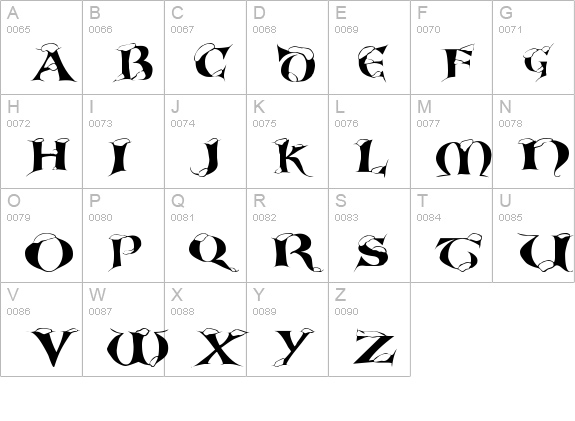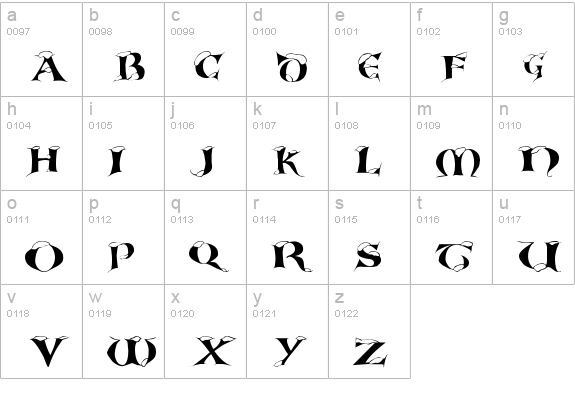
Introducing the exquisite White Christmas font, a magical typeface that captures the essence of the holiday season like no other. This elegant and versatile font is the perfect addition to your festive design projects, whether you're creating Christmas cards, holiday-themed invitations, or simply adding a touch of seasonal cheer to your website or social media posts. With its delicate strokes and graceful curves, White Christmas font brings a sense of joy and warmth to any text it adorns. Its unique style evokes the beauty of freshly fallen snow, glistening under the moonlight, while the intricate details of each letter reflect the intricate patterns of frost on a winter windowpane. But what truly sets White Christmas font apart is its generous nature – it is completely and utterly free. That's right, this stunning font is freely available to download at FontsMarket.com, giving you the opportunity to bring a touch of holiday magic to your designs without breaking the bank. Whether you're a professional graphic designer or a passionate DIY enthusiast, White Christmas font is here to make your holiday creations shine. With its wide range of characters, including uppercase, lowercase, numerals, and punctuation marks, this font offers endless possibilities for creating captivating and eye-catching designs. So, why wait? Embrace the enchantment of the holiday season with White Christmas font. Download it for free today at FontsMarket.com and let your imagination run wild as you spread joy and cheer with your beautifully crafted designs.